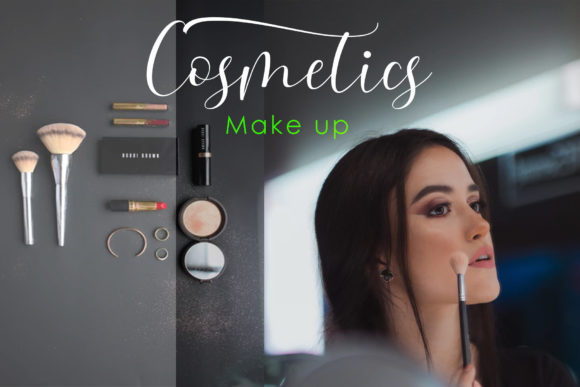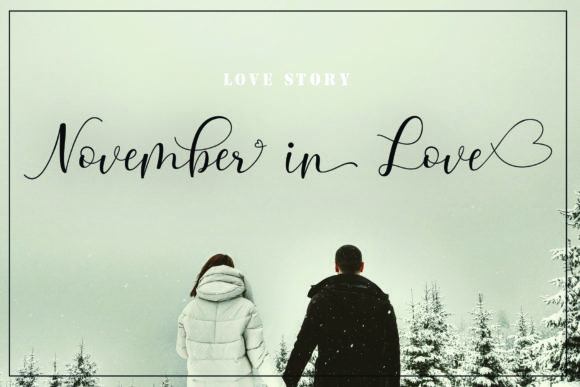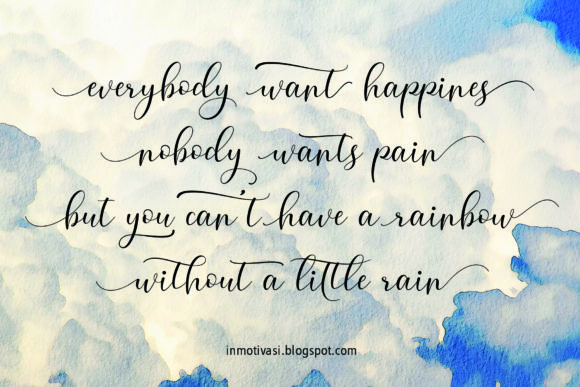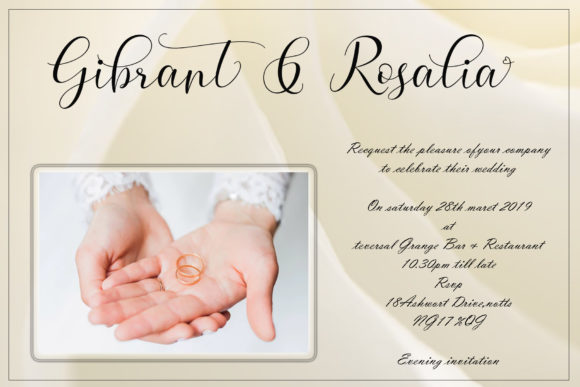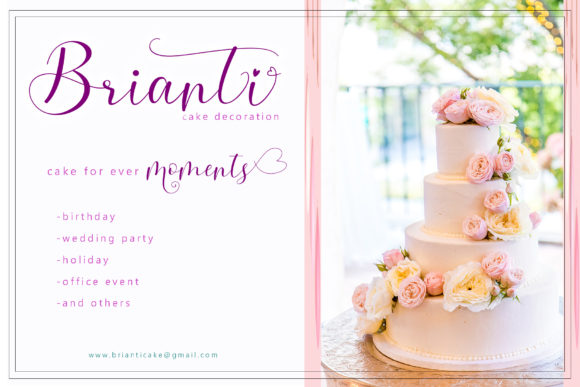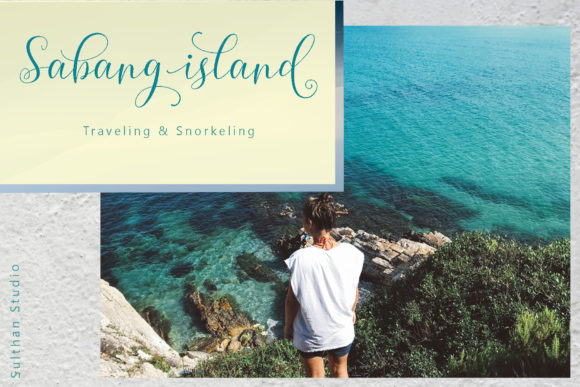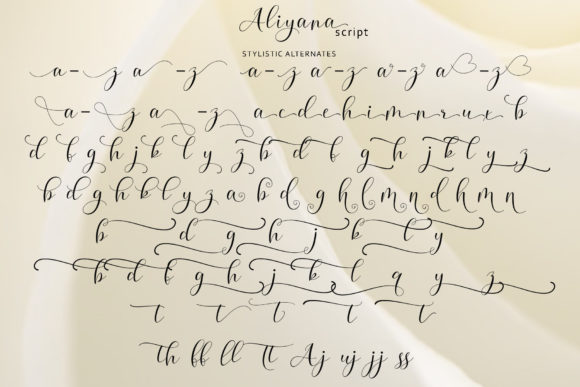
Aliyana Script Font
About Aliyana Script Font
The Aliyana is a handmade calligraphy font. It has an elegant style and is perfect for adding an upscale and chic look to your designs.